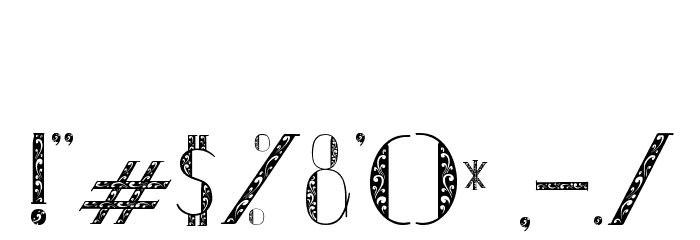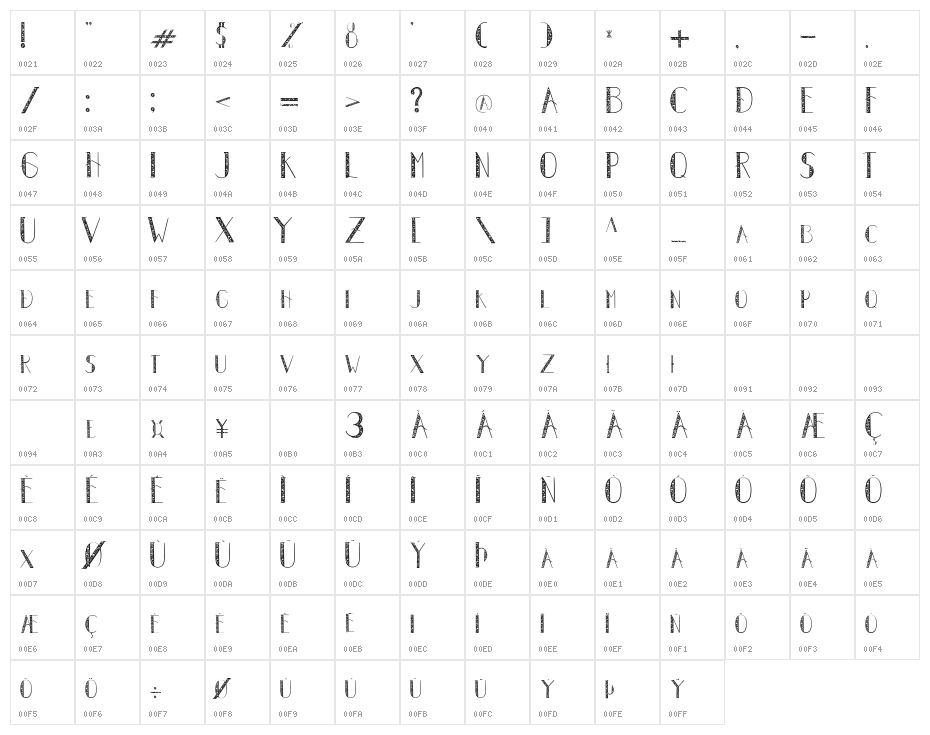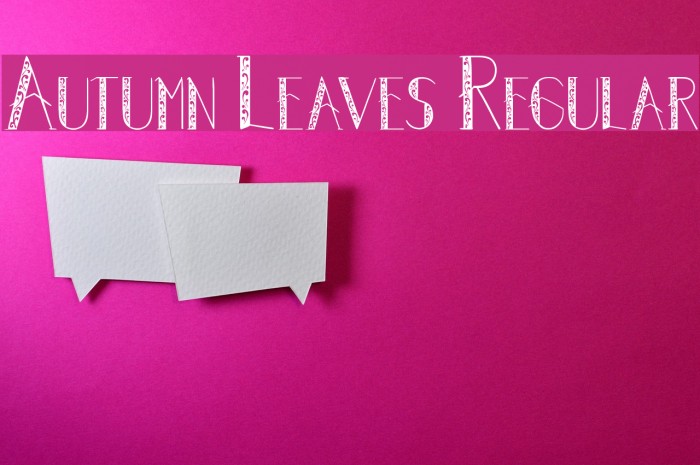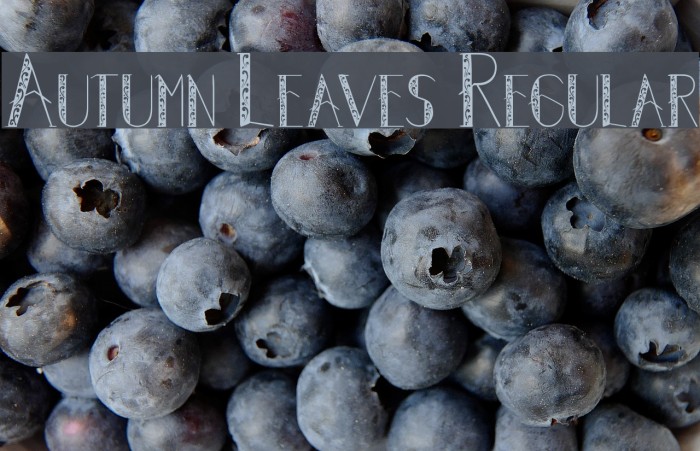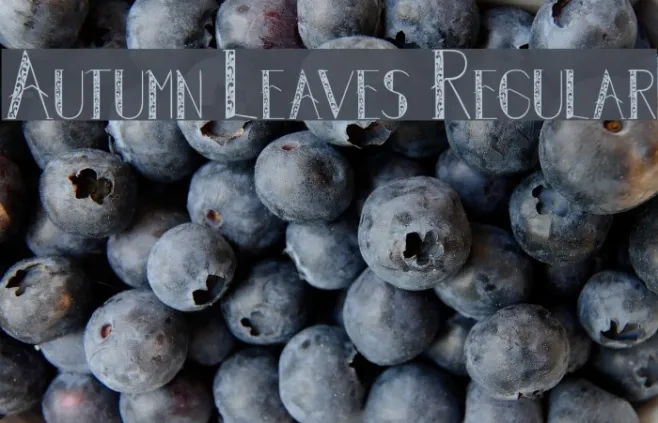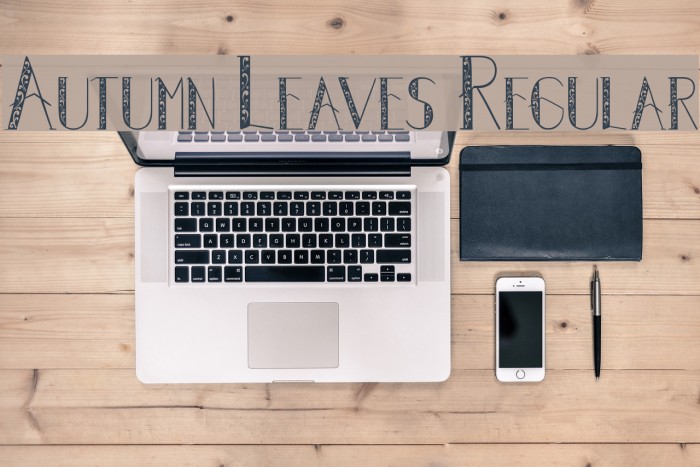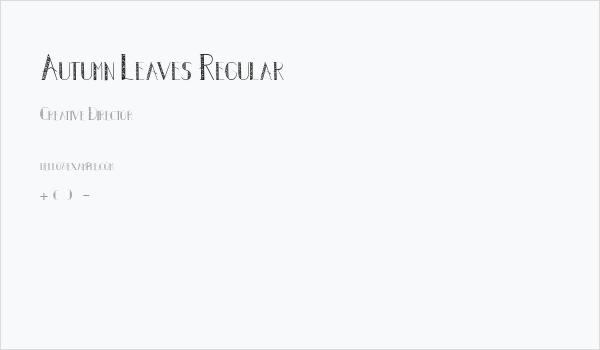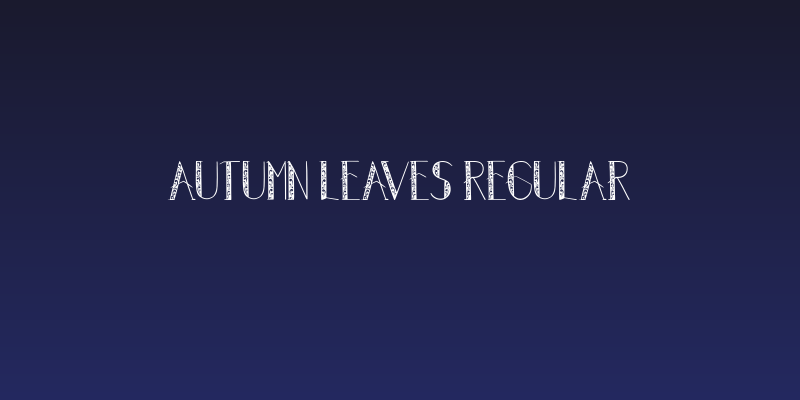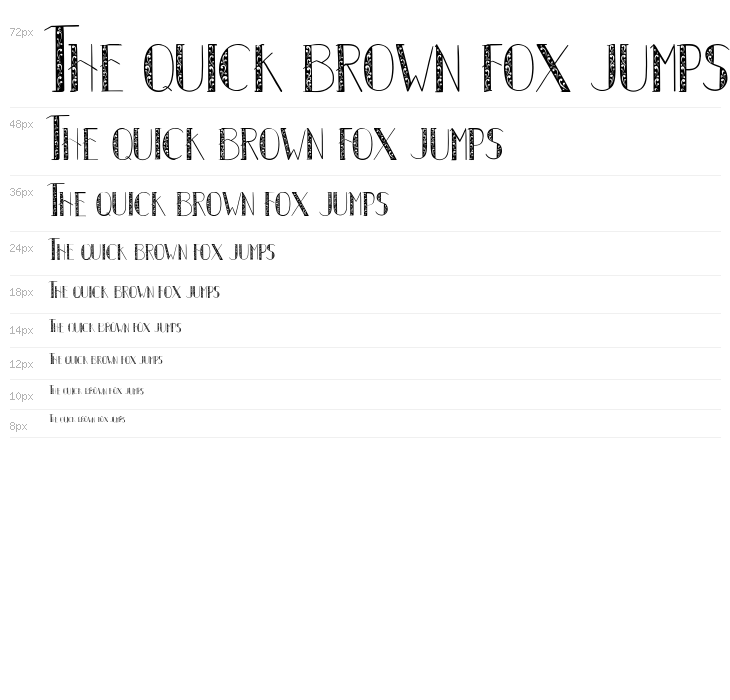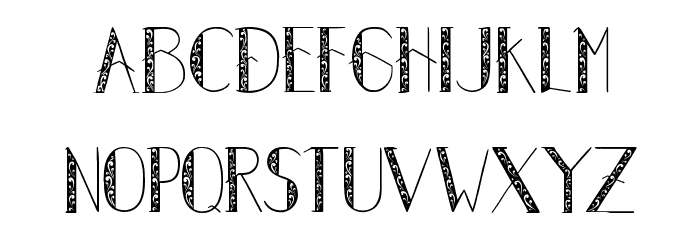
Autumn Leaves Regular Font
Autumn Leaves Regular Description
This decorative font features intricate leaf patterns within the strokes of each character, creating a unique and artistic appearance. The uppercase letters are bold and striking, with a mix of straight and curved lines that add a touch of elegance. The lowercase letters maintain the decorative theme, ensuring consistency throughout the typeface. The numerals and special characters are equally adorned with leaf motifs, making them stand out in any design. This font is perfect for projects that require a natural or organic feel, such as invitations, posters, or branding for eco-friendly products.
| Proposed Projects | Ideal for nature-themed invitations, eco-friendly branding, and artistic posters. |